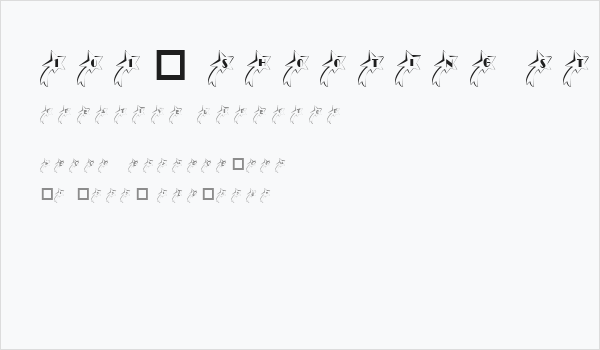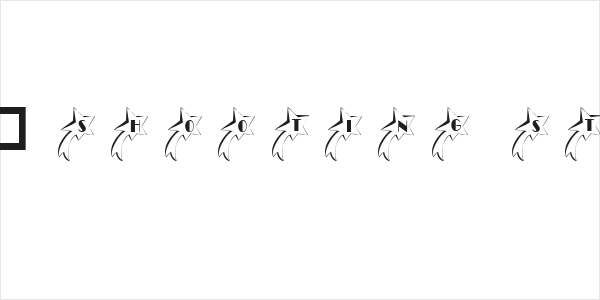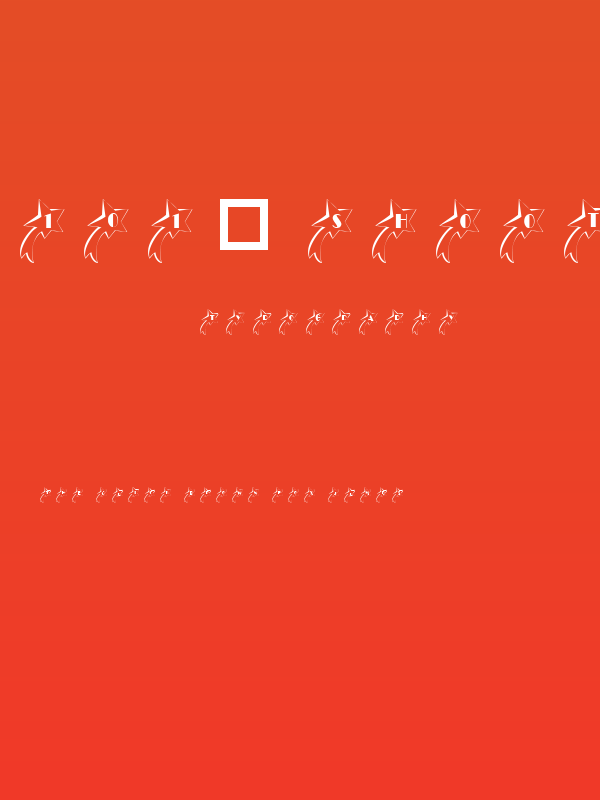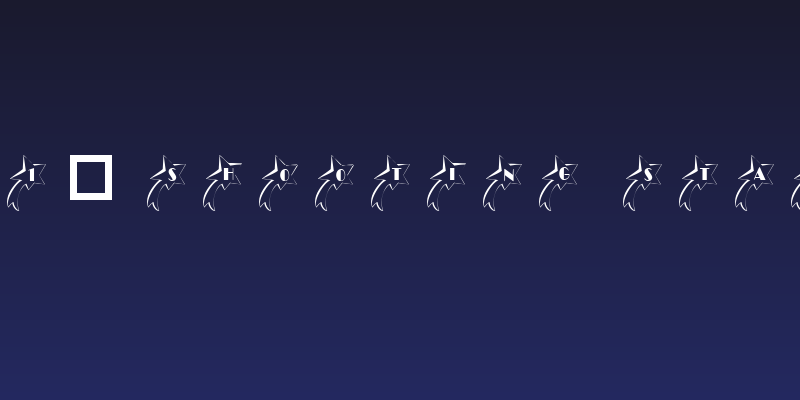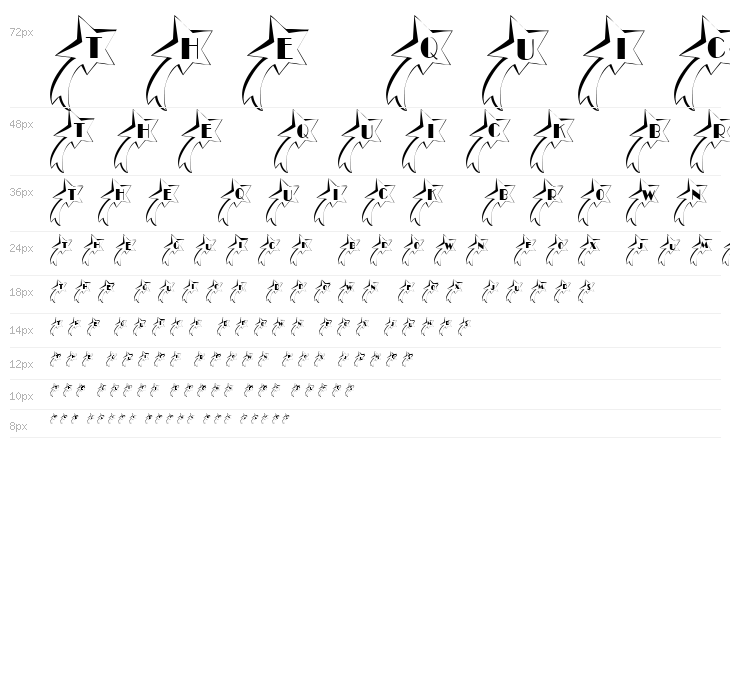
101! Shooting StarZ Font
101! Shooting StarZ Description
This decorative font features characters integrated with a shooting star design, creating a whimsical and dynamic appearance. Each letter and number is uniquely styled with a star motif, giving the font a playful and energetic feel. The characters are bold and outlined, enhancing their visibility and impact. This font is ideal for projects that require a fun and eye-catching aesthetic, such as children's book covers, party invitations, or themed event posters. The consistent star theme throughout the alphabet and numbers adds a cohesive and distinctive touch.
| Proposed Projects | Ideal for children's books, party invitations, themed event posters, and playful branding. |